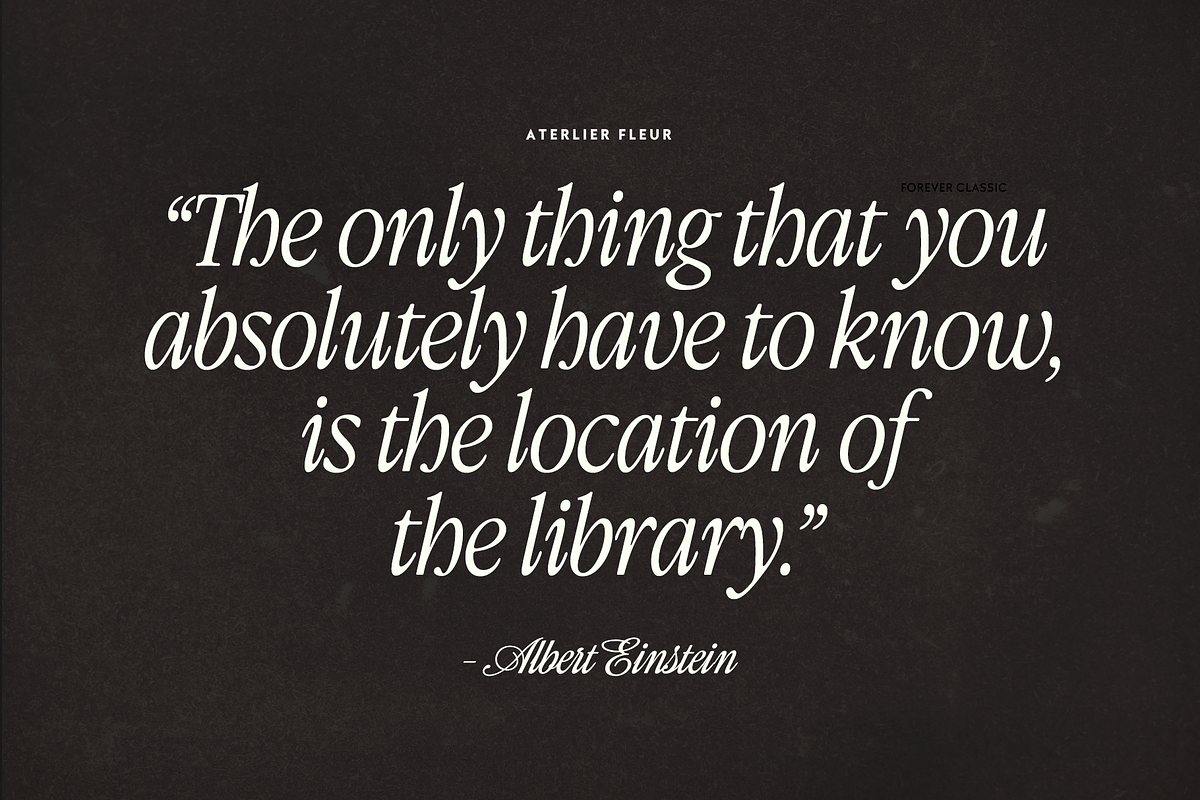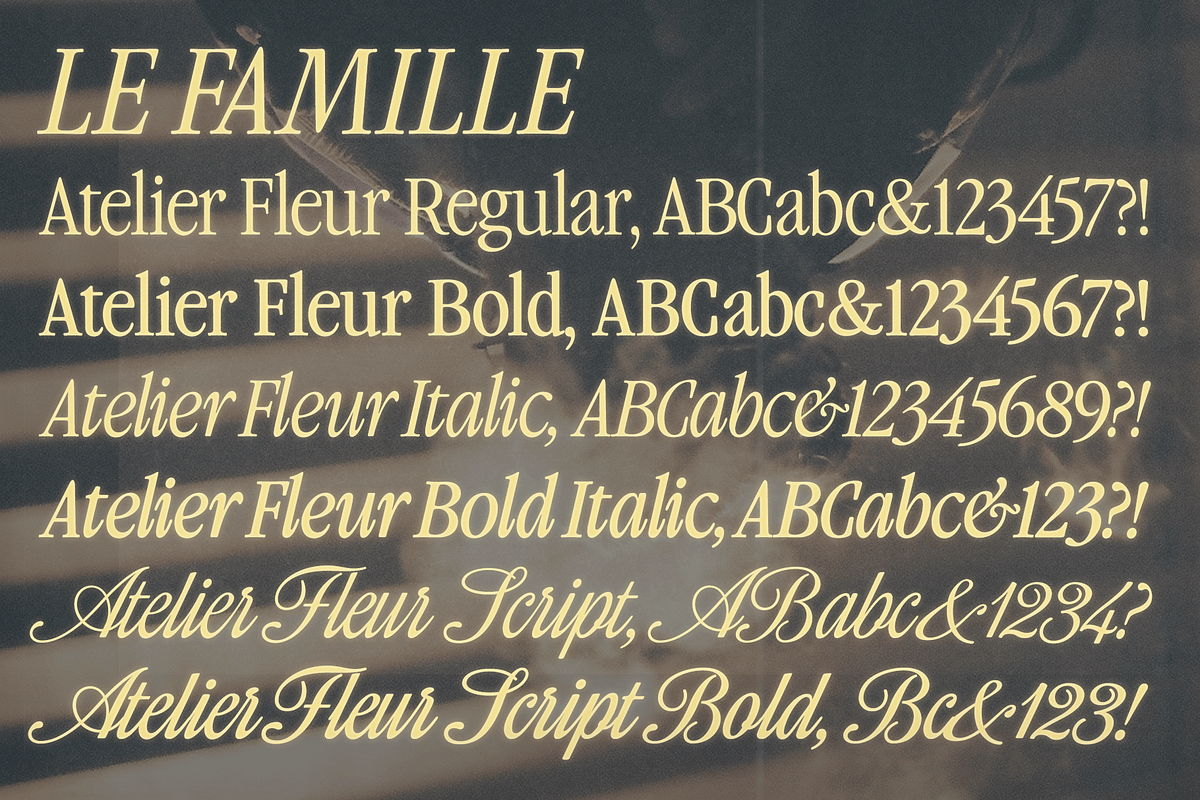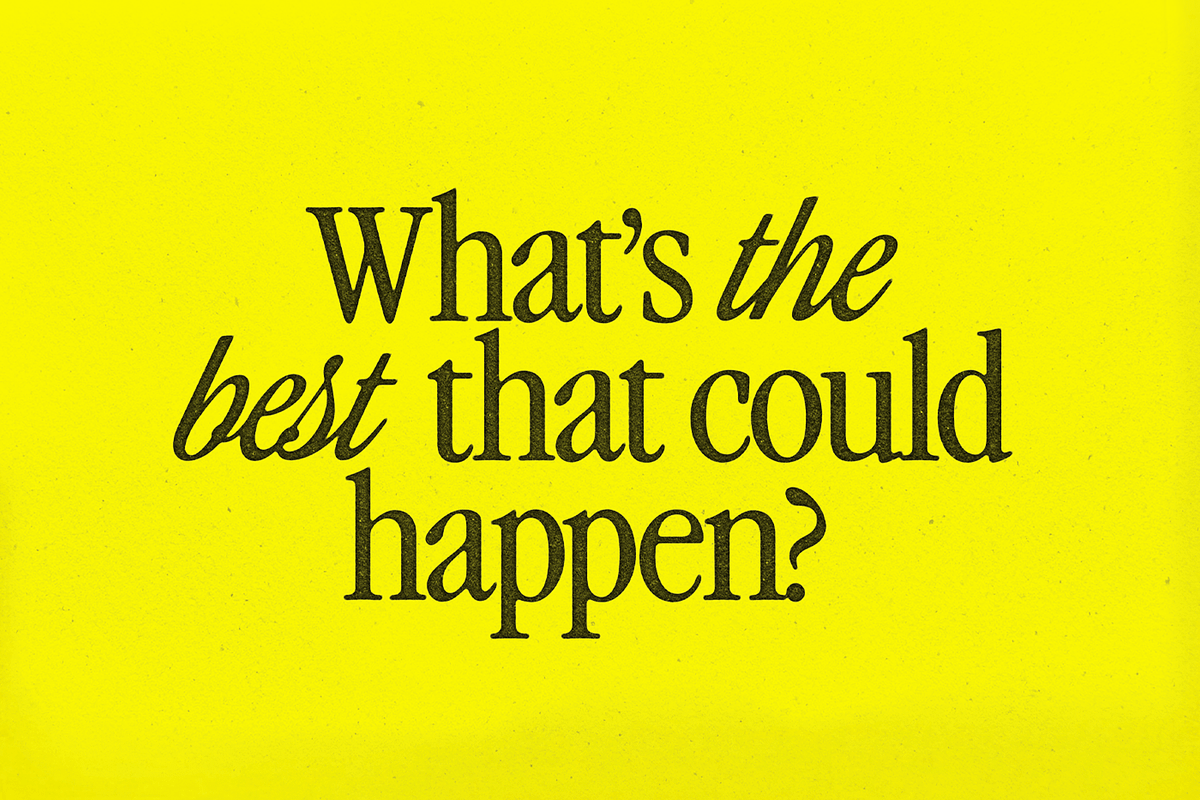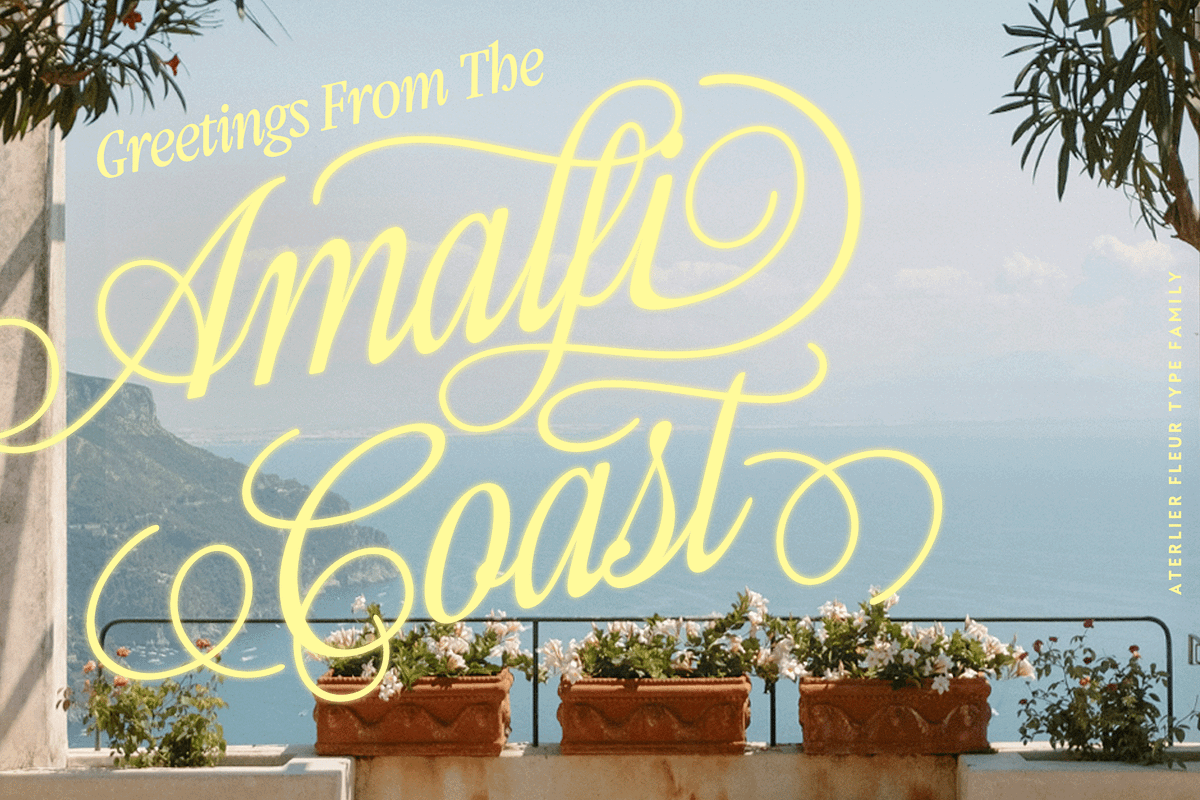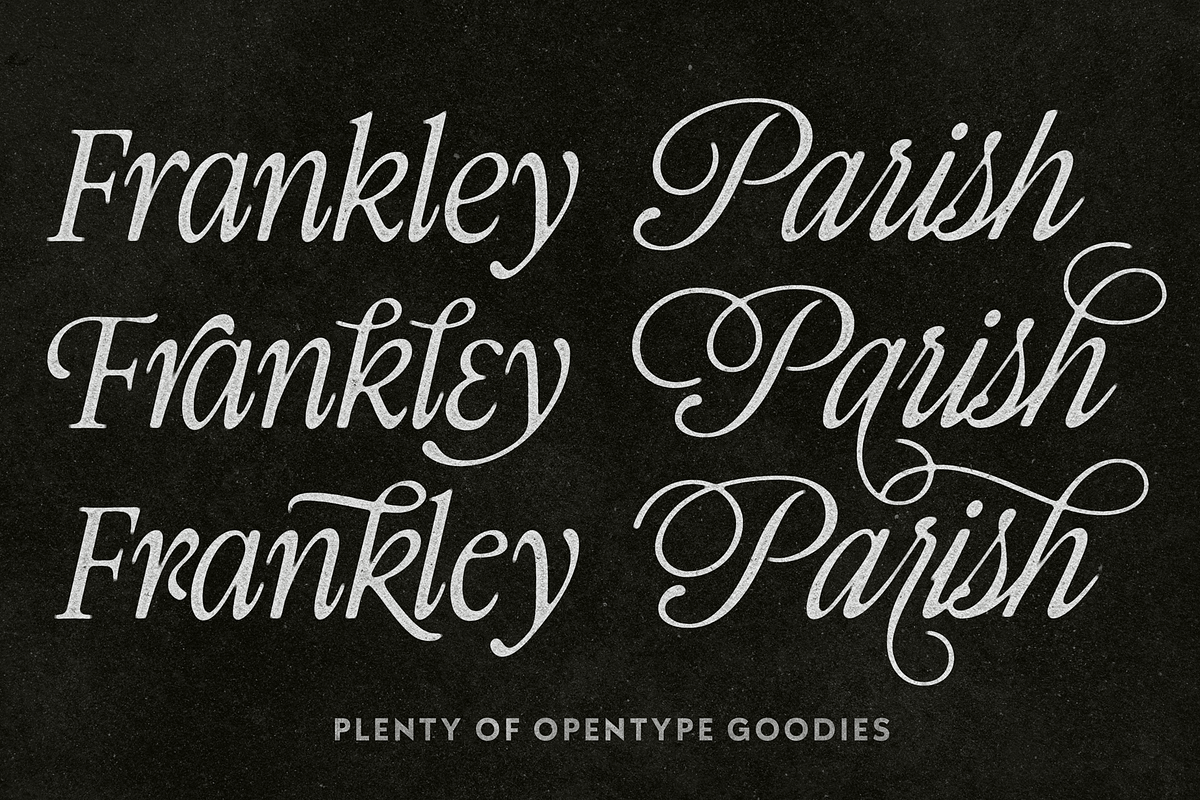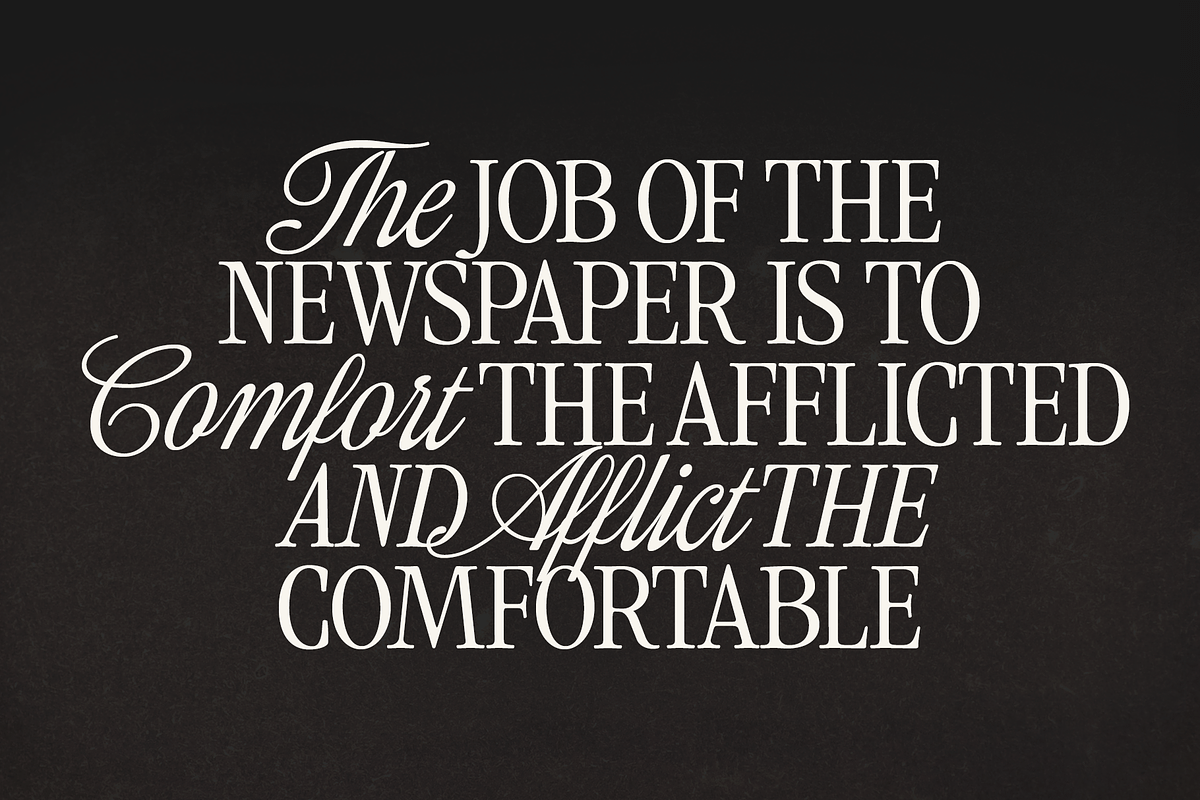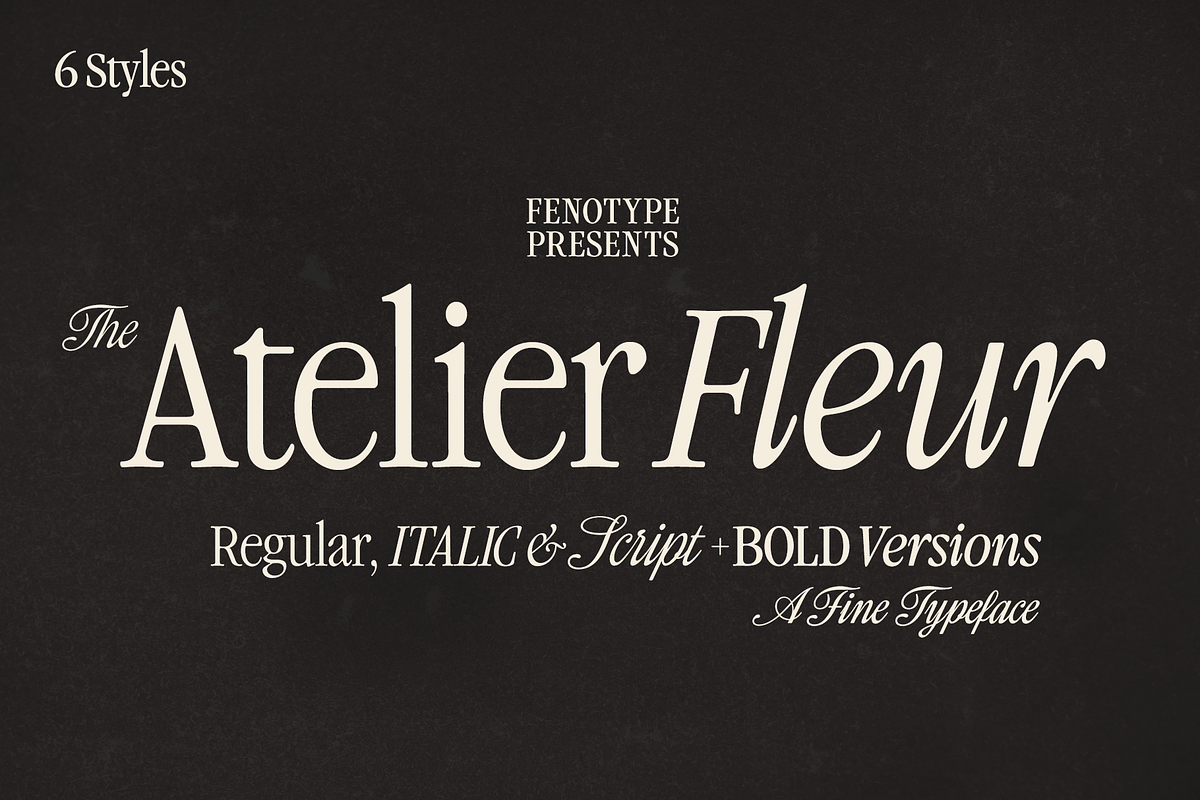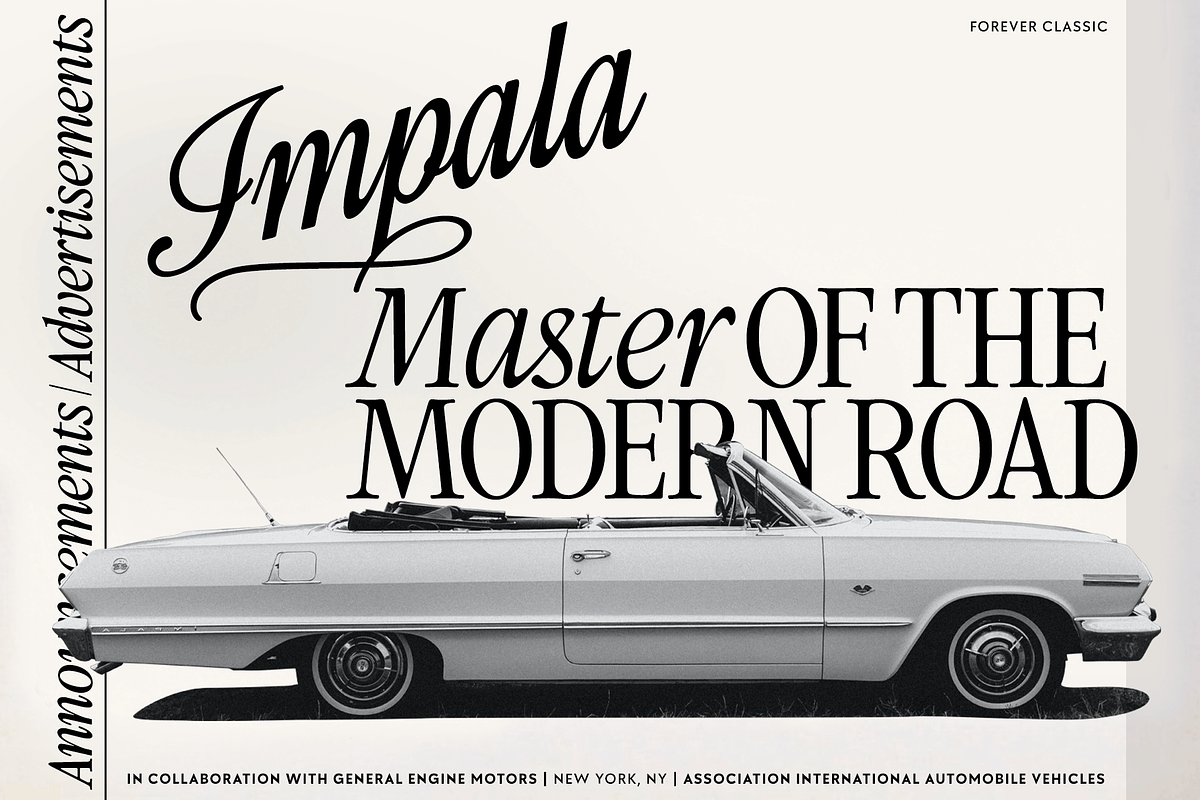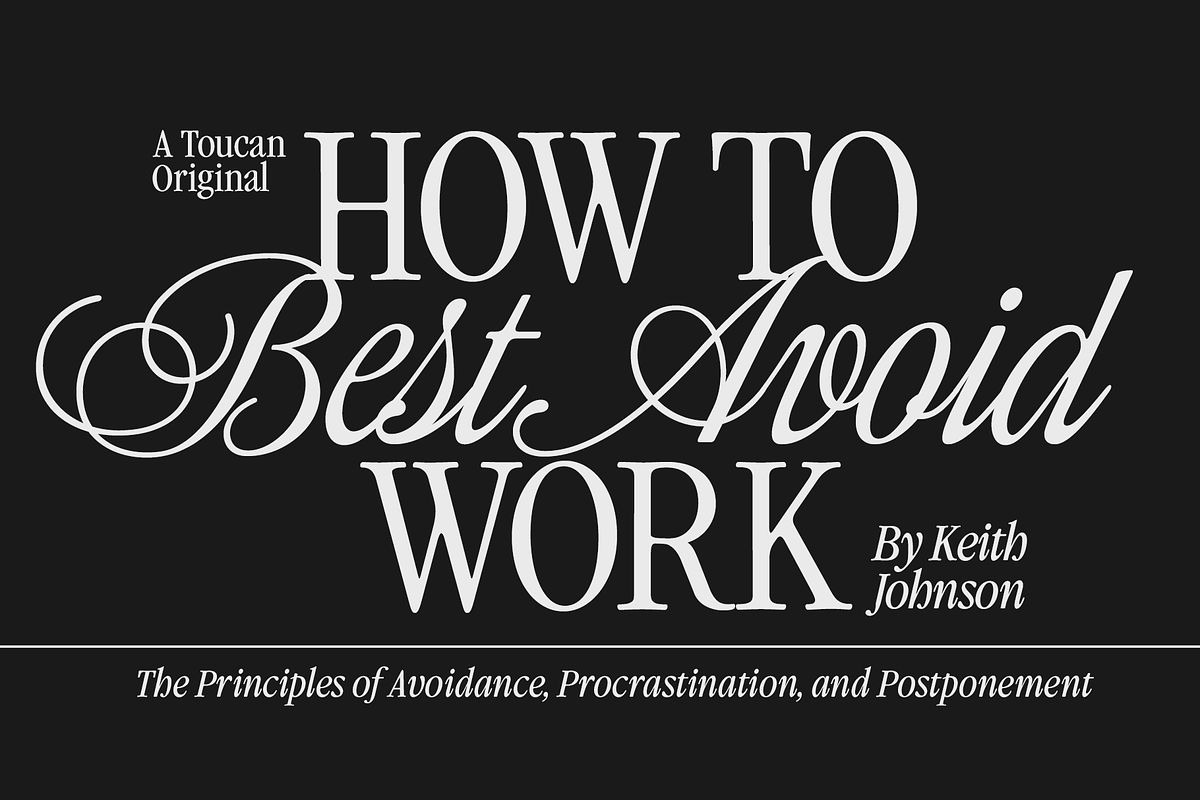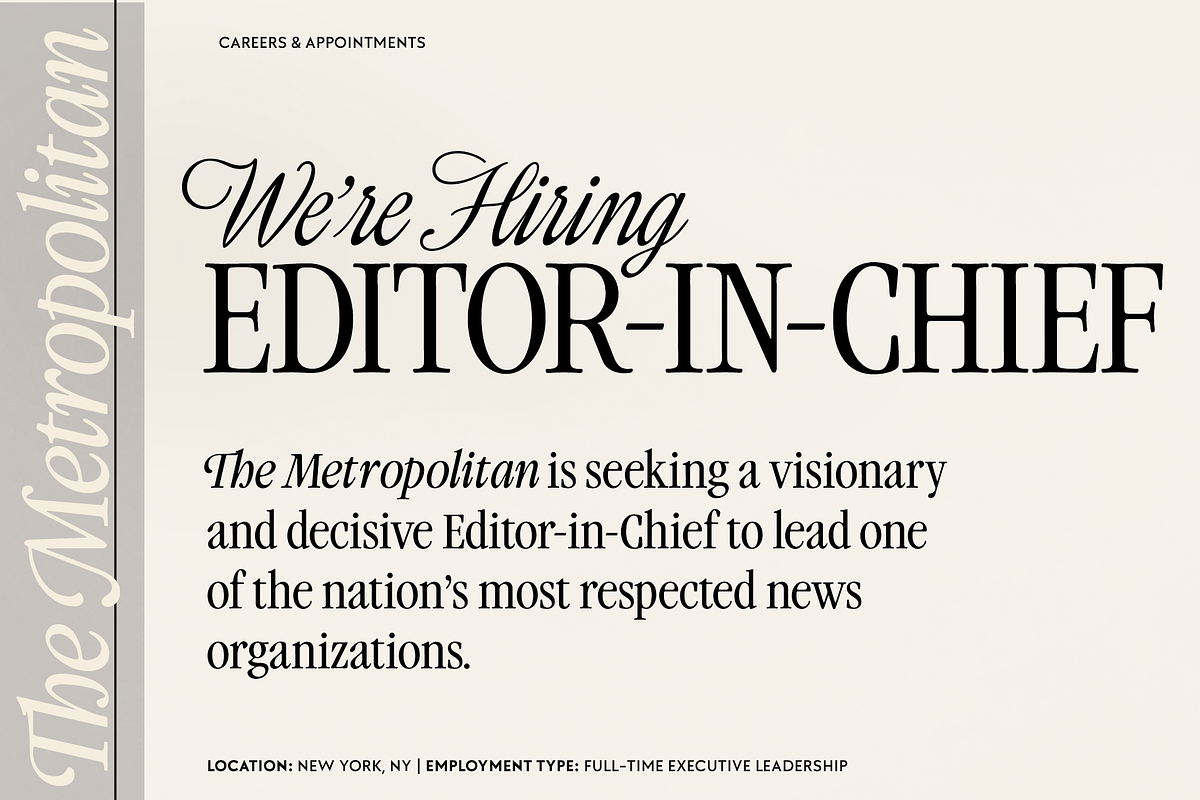
Atelier Fleur - Nostalgic Serif
Atelier Fleur is a condensed serif type family inspired by Garamond. The family consists of Serif, Italic, and Script styles, each available in Regular and Bold weights.
The type family is optimized for editorial and display use, performing particularly well in headlines, editorial highlights, branding and advertising. The Script style is designed to complement the serif styles harmoniously while remaining fully functional as a standalone display script.
All styles provide extensive language coverage and include a comprehensive set of OpenType features. The Script and Italic styles offer a range of alternate characters accessible through Swash, Stylistic Alternates, Titling Alternates, and multiple Stylistic Sets. The Script style additionally contains decorative pen stroke elements, accessible via Stylistic Set 1 and mapped to numerals (0–9).